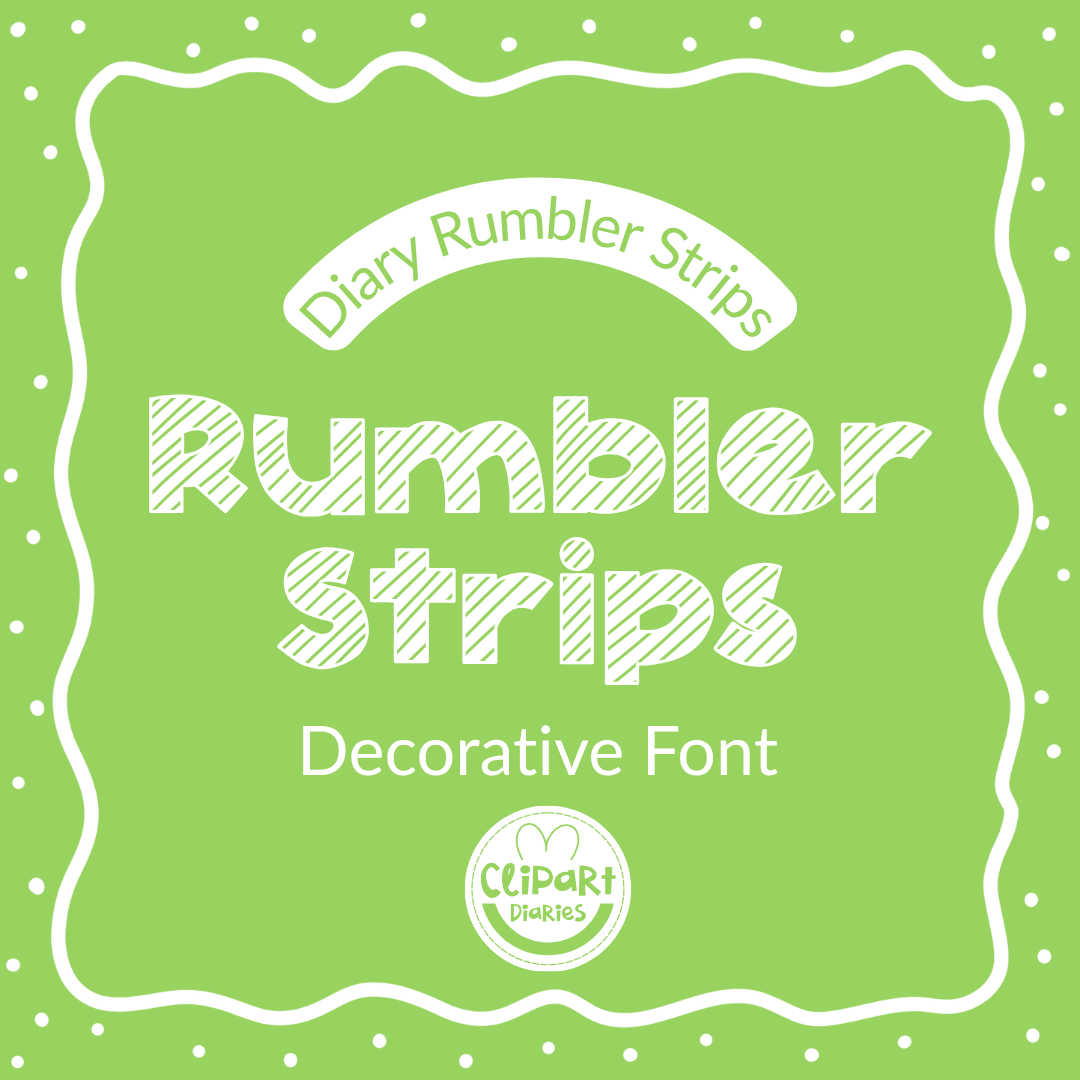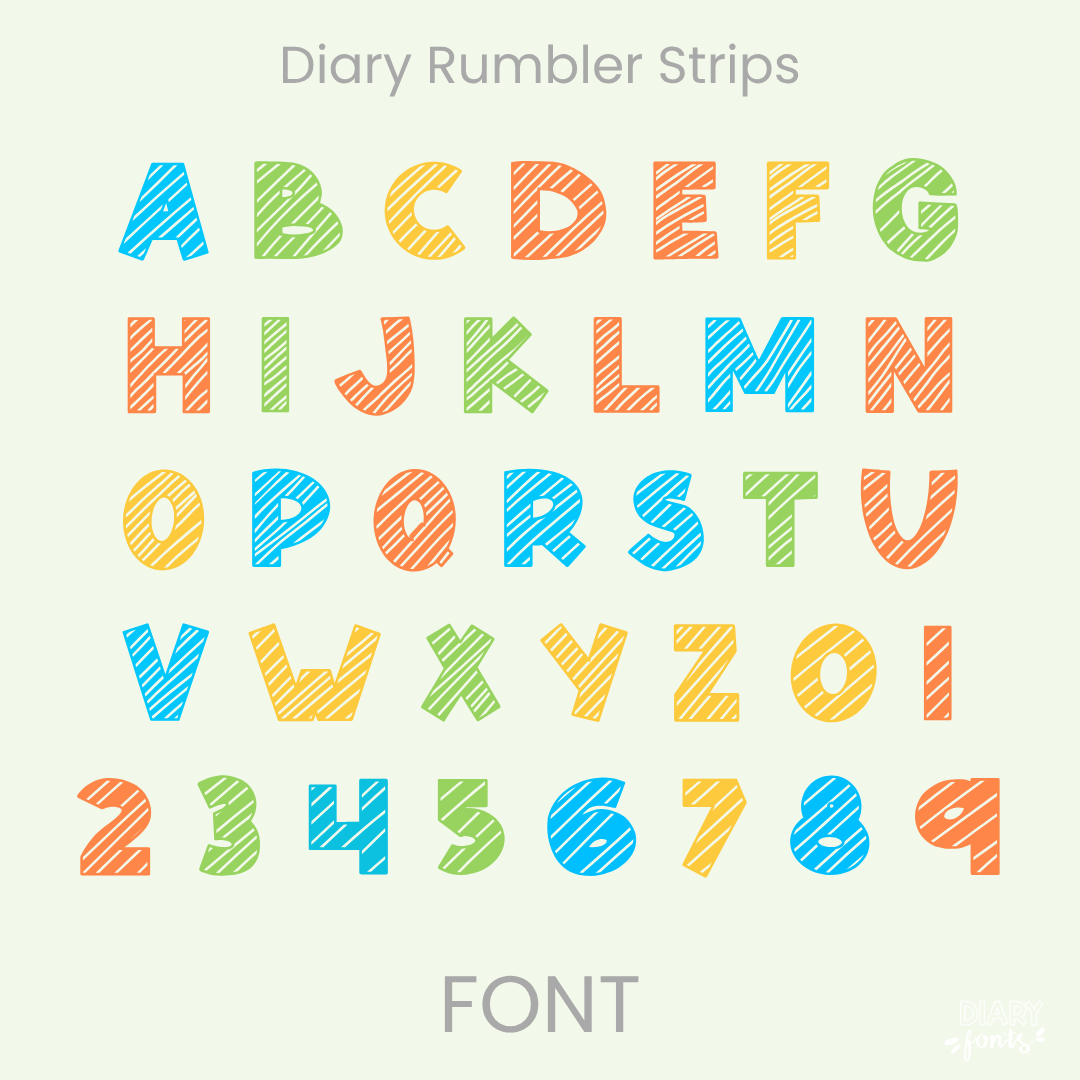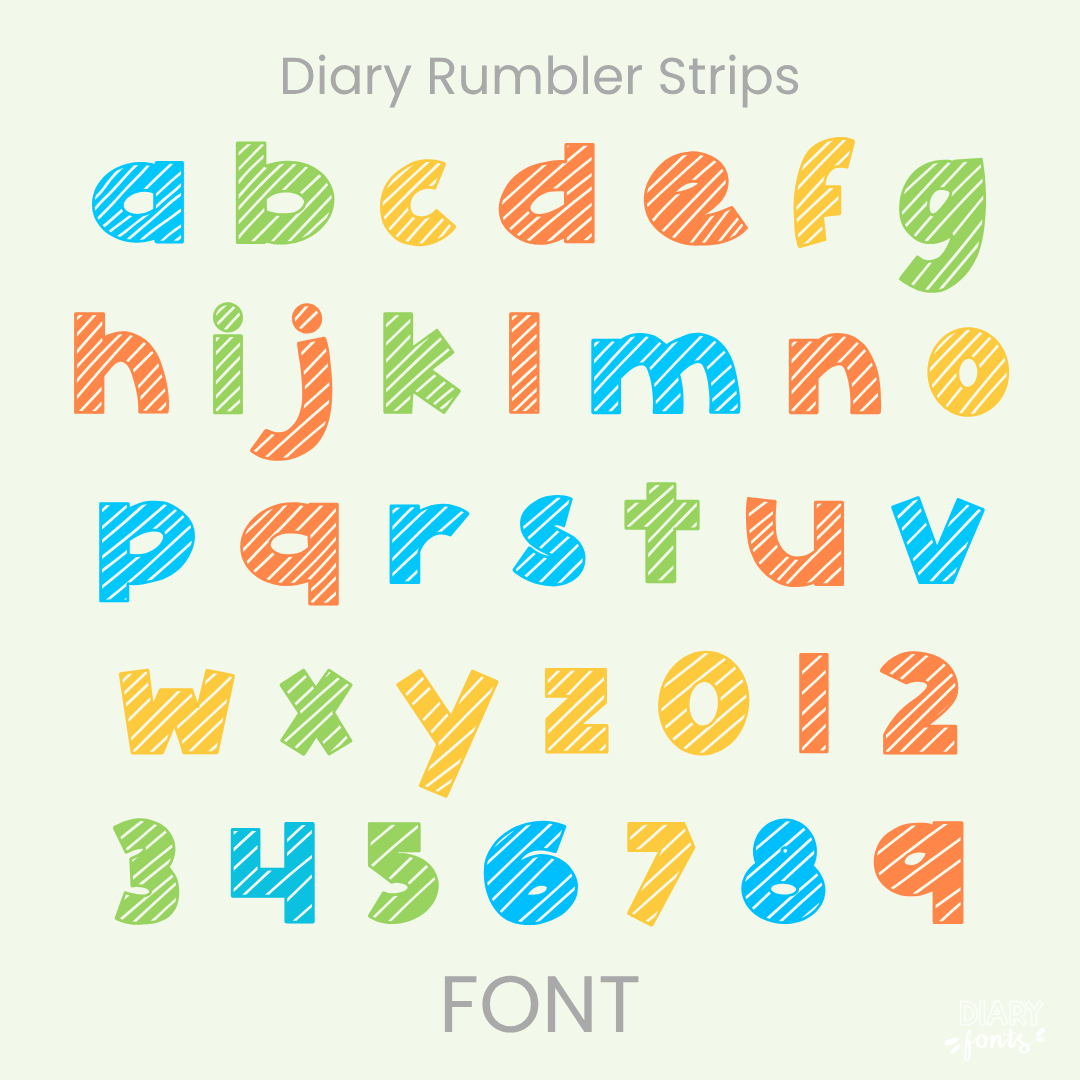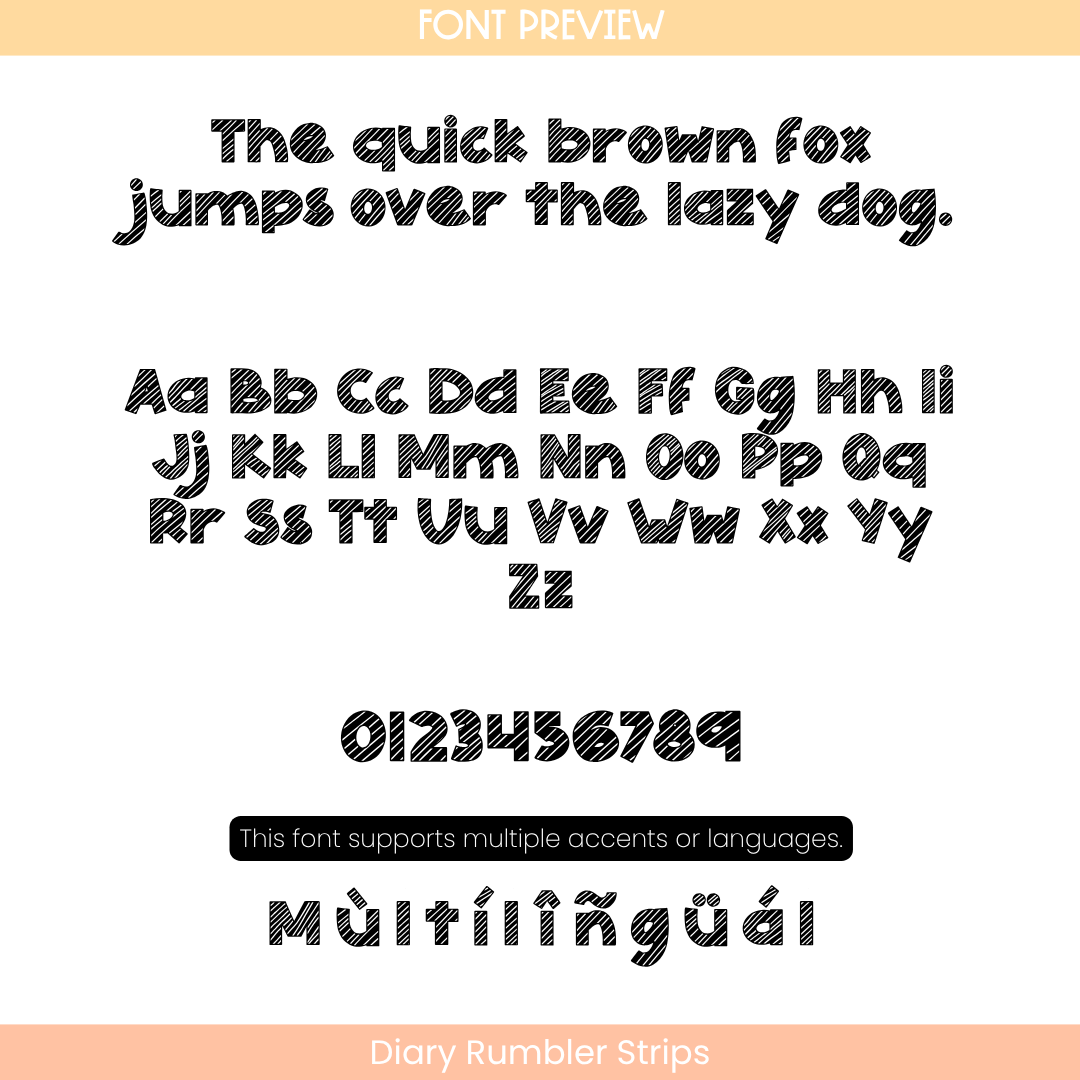
If you want to make a statement but keep things incredibly fun and artistic, Diary Rumbler Strips is exactly what your teacher heart needs. This display font takes massive, heavy-weighted blocky letterforms and fills them completely with a dense, diagonal sketched texture. Instead of a solid black block, the close-knit sketched lines give it a gorgeous, hand-crafted chalkboard look while keeping the edges clean, sharp, and incredibly bold so your sweet students can read it perfectly from anywhere in the room.
It is absolutely perfect for designing standout bulletin boards, eye-catching presentation slide titles, coloring activity sheets, cover pages, and classroom signs where you want your text to have a crafty, patterned vibe. Inside the download, you’ll get a full set of sketched-pattern uppercase and lowercase letters, matching numbers, and multi-accent marks for complete multilingual support. It drops right into Canva, MS Office, or Adobe on your desktop, and pairs beautifully with Procreate and GoodNotes on your iPad. Whether you’re prepping weekly printables for your own sweet classroom or designing a bold new product line for your online teacher shop, this textured display font adds the perfect touch of confident, friendly style to your toolkit.